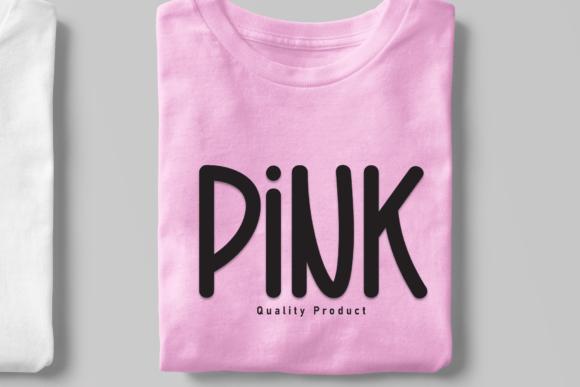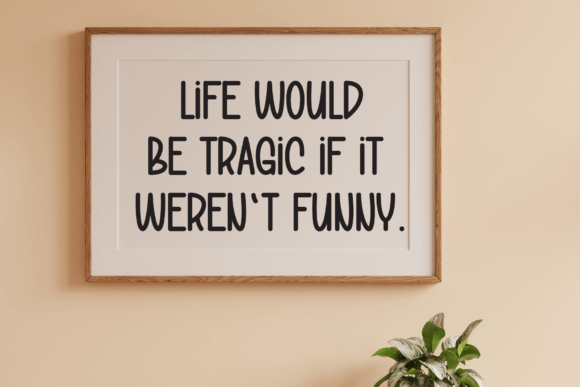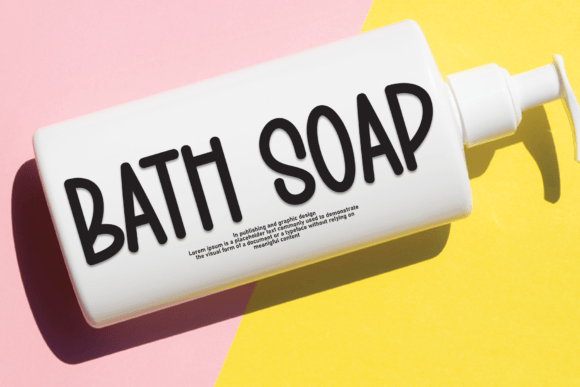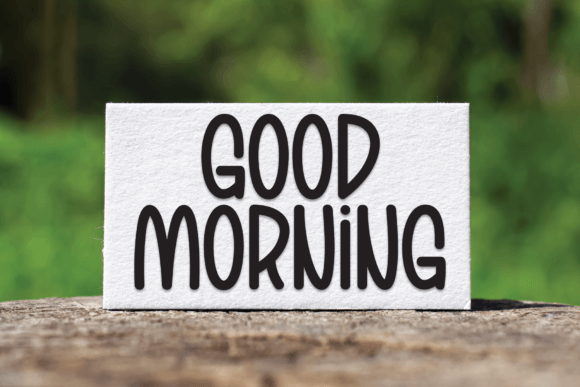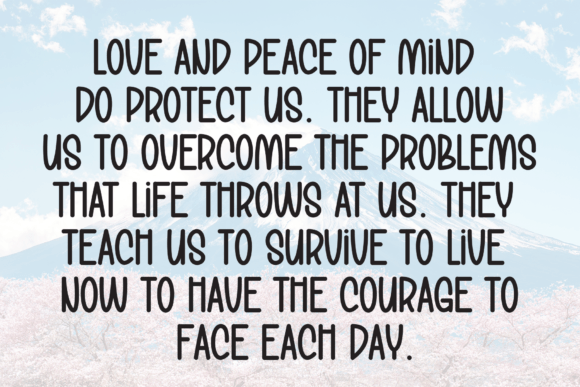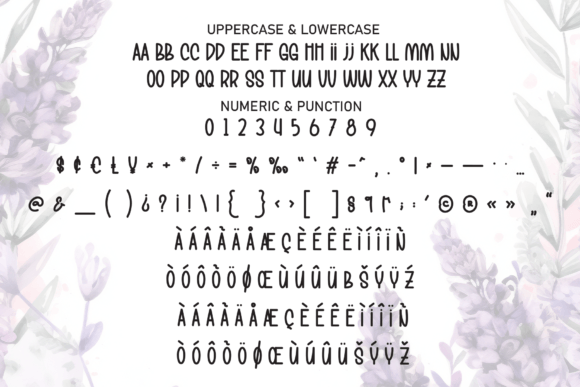
Introducing Beatitude Someone Font: The Perfect Playful and Casual Handwritten Display Font
Are you tired of using the same old fonts for your creative projects? Look no further! Beatitude Someone Font is here to add a touch of fun and personality to your designs. This playful and casual handwritten display font is perfect for creating eye-catching greeting cards, posters, social media posts, and more.
What Makes Beatitude Someone Font So Special?
Beatitude Someone Font boasts a fun and relaxed style that is sure to capture the attention of your audience. Its hand-written letters give off a personal and friendly vibe, making it ideal for designers and crafters who want to add a touch of whimsy to their work. Whether you’re creating a birthday card, a flyer for a local event, or a social media post, this font is sure to make your project stand out.
Key Features of Beatitude Someone Font
- Playful and Casual Style: Beatitude Someone Font has a fun and relaxed style that is perfect for creative designs.
- Handwritten Letters: The letters in this font look like they were written by hand, giving a personal and friendly touch to any project.
- Versatile: This font is perfect for a variety of projects, including greeting cards, posters, social media posts, and more.
- Easy to Read: Despite its playful style, Beatitude Someone Font is easy to read, making it perfect for designs that require a clear message.
Uses for Beatitude Someone Font
Beatitude Someone Font is a versatile font that can be used for a wide range of projects. Here are some ideas to get you started:
- Greeting Cards: Add a personal touch to your greeting cards with Beatitude Someone Font. It’s perfect for birthdays, holidays, and special occasions.
- Posters: Create eye-catching posters for local events, sales, or promotions with this fun and playful font.
- Social Media Posts: Add some personality to your social media posts with Beatitude Someone Font. It’s perfect for creating engaging and shareable content.
- Signs: Use Beatitude Someone Font to create signs for events, sales, or promotions. Its playful style is sure to grab attention.
Tips for Using Beatitude Someone Font
Here are some tips for getting the most out of Beatitude Someone Font:
- Use it Sparingly: While Beatitude Someone Font is playful and fun, it can be overwhelming if used too much. Use it sparingly to add emphasis to key words or phrases.
- Pair it with Other Fonts: Beatitude Someone Font pairs well with other fonts, especially serif fonts. Try pairing it with a serif font for a contrasting look.
- Experiment with Colors: Beatitude Someone Font looks great in a variety of colors. Experiment with different colors to find the perfect look for your project.
Beatitude Someone Font is a playful and casual handwritten display font that is perfect for adding a touch of personality to your designs. Its fun and relaxed style makes it ideal for creative projects like greeting cards, posters, social media posts, and more. With its versatile style and easy-to-read letters, Beatitude Someone Font is a great addition to any designer’s toolkit.